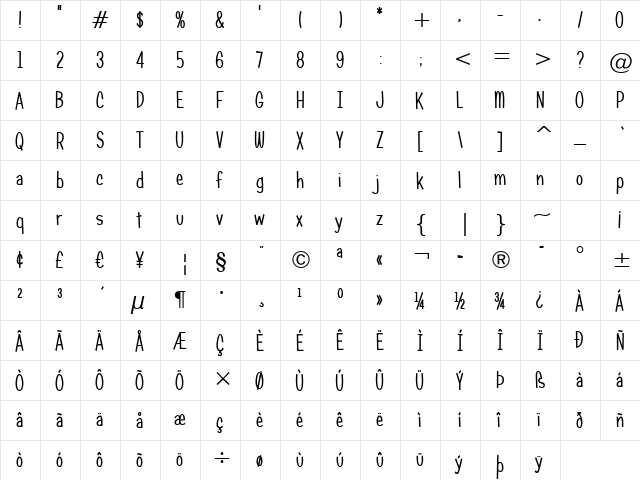
Candy Square BTN Cond Regular
Design Context for Candy Square BTN Cond Typeface
Candy Square BTN Cond takes a measured approach to typography — its balanced proportions and neutral character make it a reliable workhorse for both digital and print work. The condensed width makes it efficient for tight spaces without sacrificing legibility.